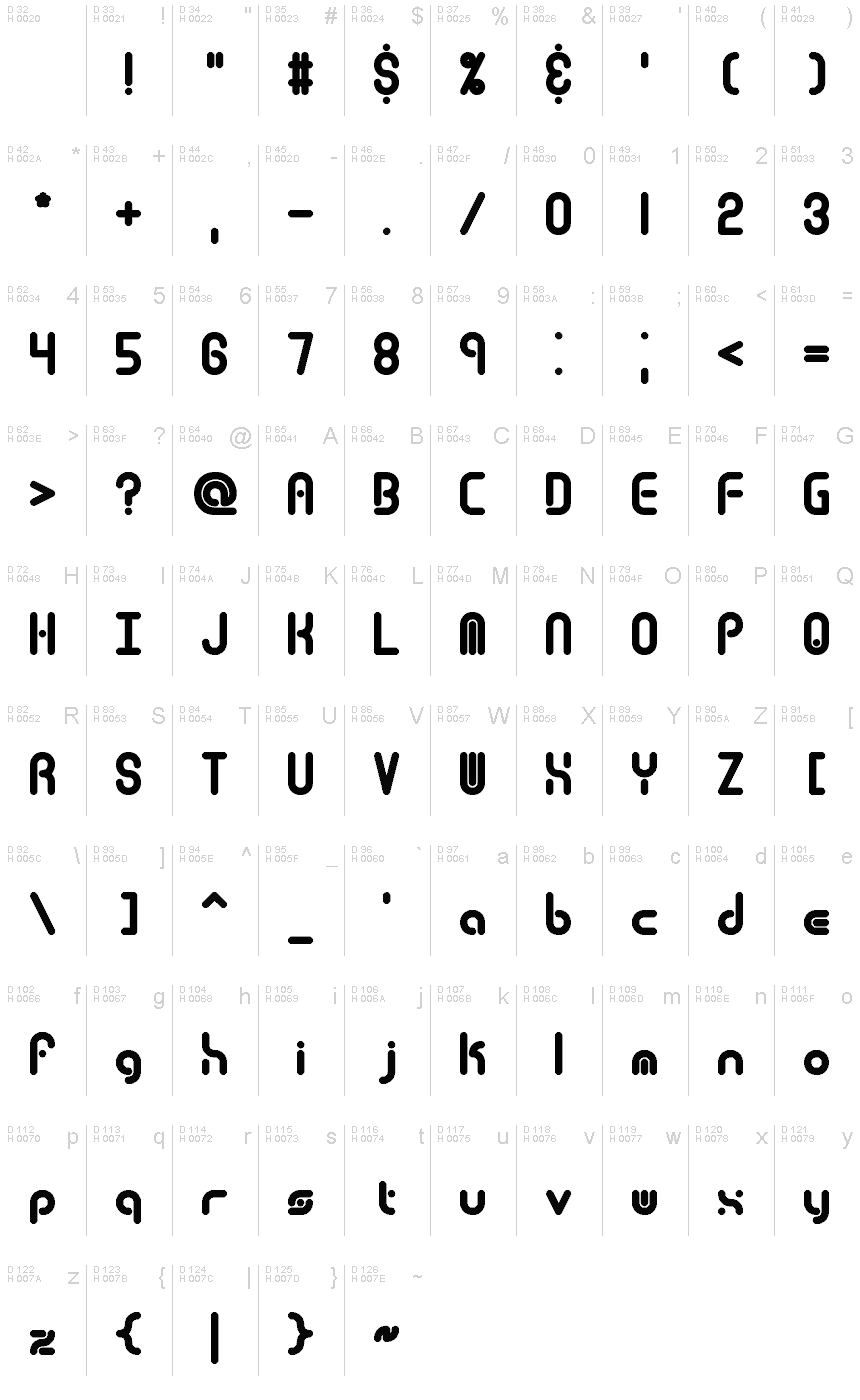
techno overload BRK
Techno Overload BRK from ÆNIGMA FONTS is a standout member of the Techno Overload font family, embodying a semi-bold, techno style that captures the essence of digital dynamism and contemporary flair. This display typeface exudes an aesthetic appeal that is both modern and striking, with clean lines and shapes that evoke a sense of technological advancement.
The semi-bold weight of Techno Overload BRK adds a touch of seriousness to its playful structure, making it versatile for various creative projects. Its sleek contours and industrial feel make it particularly suitable for themes related to science fiction, gaming, electronic music, and innovative branding campaigns. The techno style lends itself well to graphical elements in posters, website headers, or any design space that calls for a font with character and futuristic charm.
Incorporating Techno Overload BRK into your creative toolkit opens up possibilities for bold statements and attention-grabbing visuals. Its unique characteristics ensure that any text stands out while maintaining readability—a balance that is crucial in effective visual communication.
The semi-bold weight of Techno Overload BRK adds a touch of seriousness to its playful structure, making it versatile for various creative projects. Its sleek contours and industrial feel make it particularly suitable for themes related to science fiction, gaming, electronic music, and innovative branding campaigns. The techno style lends itself well to graphical elements in posters, website headers, or any design space that calls for a font with character and futuristic charm.
Incorporating Techno Overload BRK into your creative toolkit opens up possibilities for bold statements and attention-grabbing visuals. Its unique characteristics ensure that any text stands out while maintaining readability—a balance that is crucial in effective visual communication.